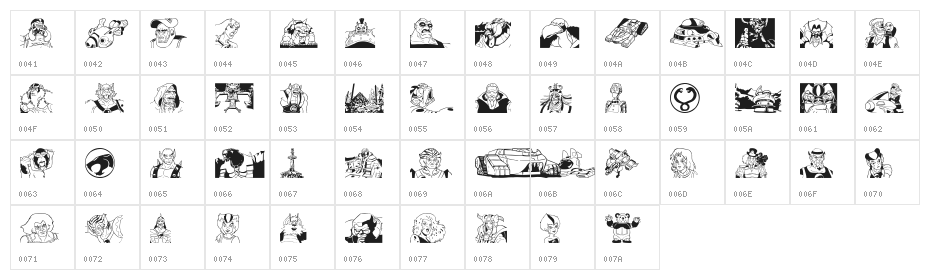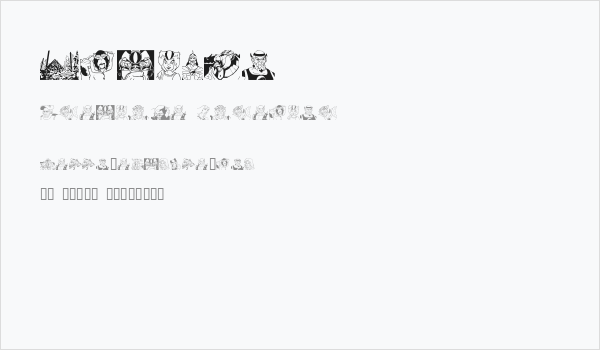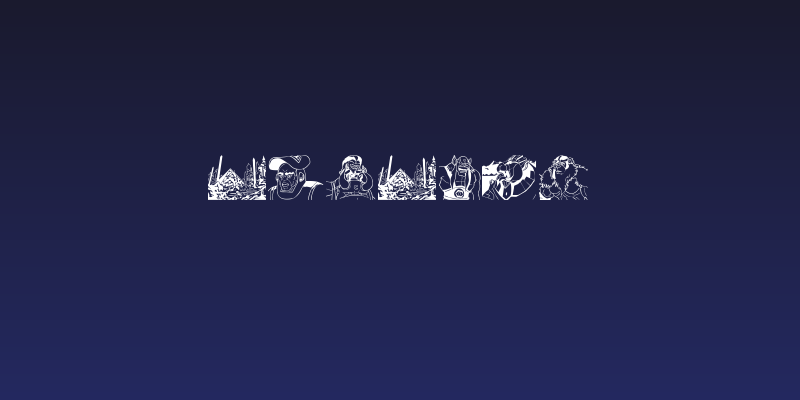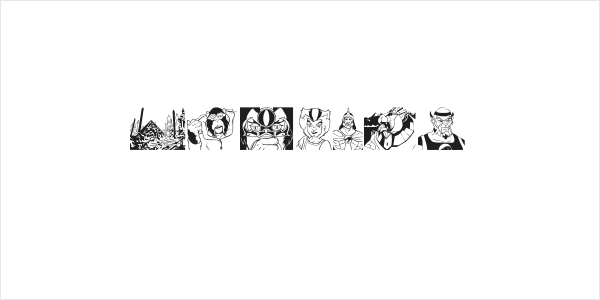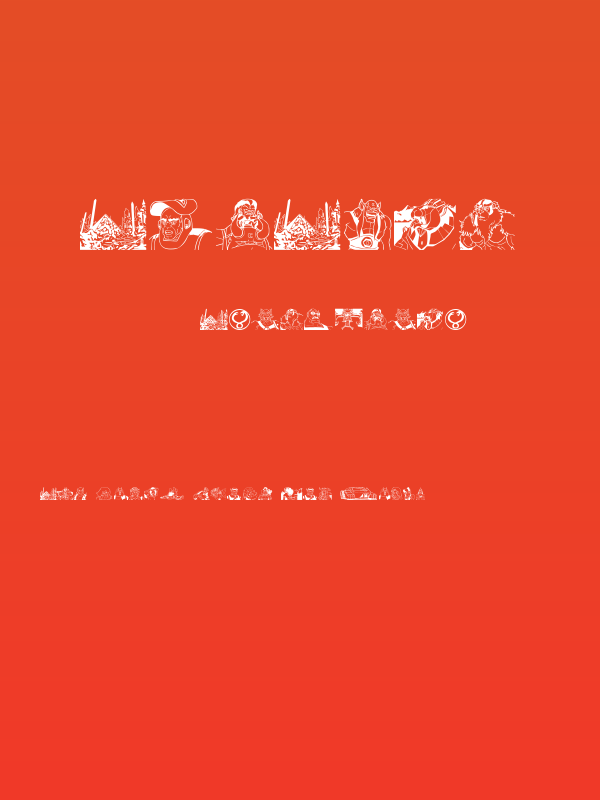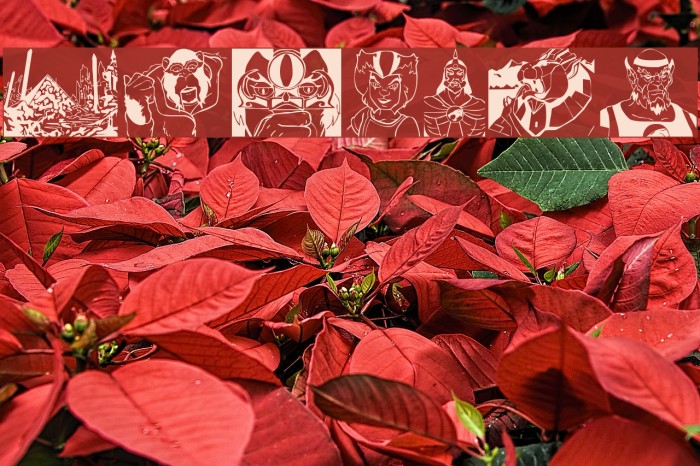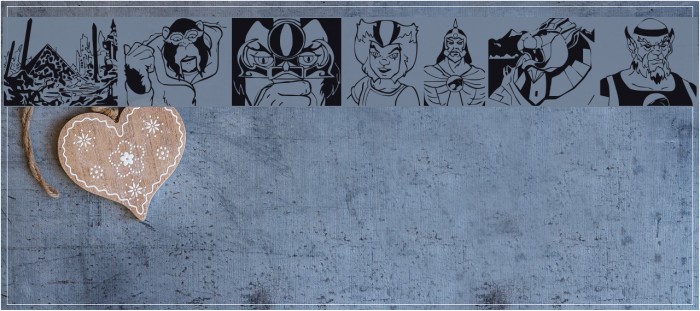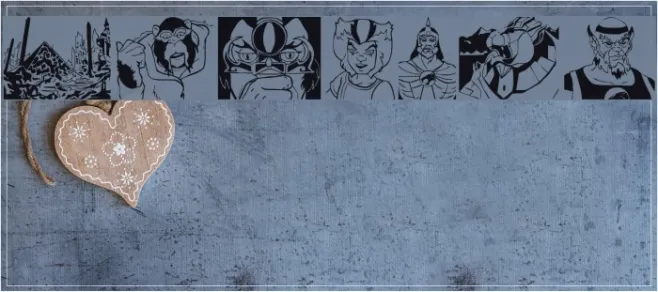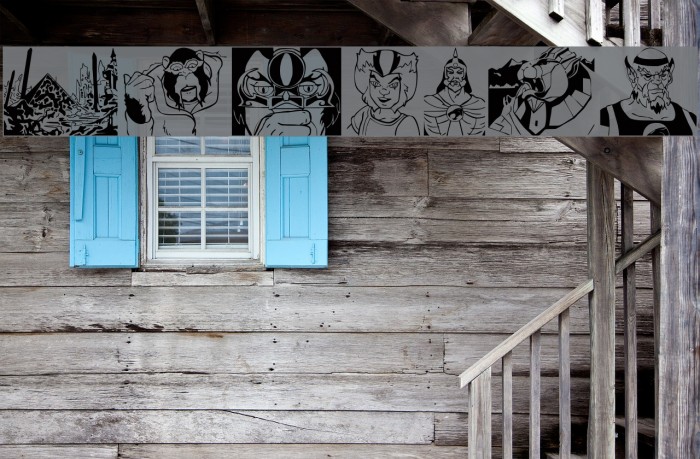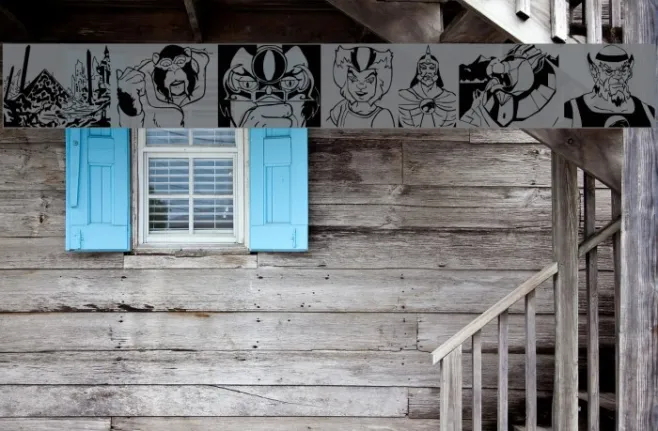
TcatsHo Font
TcatsHo Description
A decorative display font featuring detailed illustrations of cartoon or comic-style characters and objects in place of standard alphanumeric glyphs, with bold outlines and high contrast between black and white areas, creating a playful and dynamic visual effect.
| Overall Style | Decorative, Playful, Comic-inspired |
| Use Case | Logos, Posters, Headlines, Themed graphics |
| Proposed Projects | Comic books, themed party invitations, children's event posters, novelty merchandise, fan art projects. |